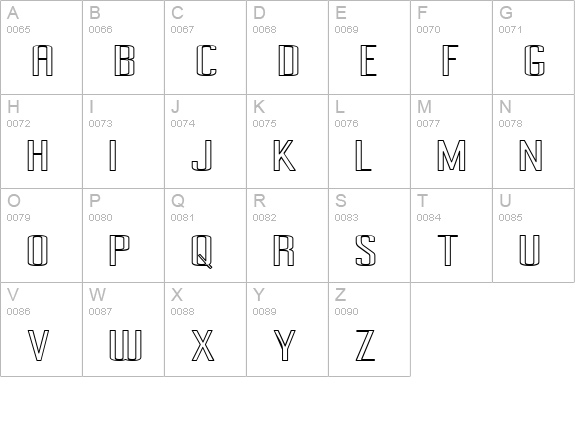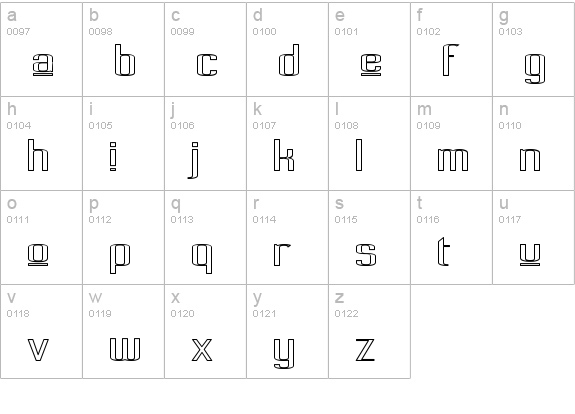
Pecot Upper Outline font is a stunning typeface that exudes elegance and sophistication. With its clean lines and distinct outlines, this font is perfect for adding a touch of modernity to any design project. Its uppercase characters are beautifully crafted, making them versatile for headlines, titles, and logos. What makes Pecot Upper Outline font even more appealing is that it is completely free to download. You can easily access this remarkable font at FontsMarket.com, where it is freely available for personal and commercial use. Whether you're a designer, a business owner, or simply someone who appreciates high-quality fonts, Pecot Upper Outline is a must-have in your collection. With its sleek and refined aesthetic, Pecot Upper Outline font will effortlessly elevate your designs to new heights. Its striking outlines and attention to detail make it a standout choice for branding, advertising, packaging, and more. The versatility of this font allows it to be used in various contexts, from digital platforms to print materials. The clean and crisp design of Pecot Upper Outline font ensures legibility even at smaller sizes, making it ideal for body text as well. Its balanced proportions and consistent strokes create a harmonious visual experience that is both pleasing to the eye and easy to read. Whether you're designing a website, a magazine layout, or a promotional flyer, this font will ensure your content is presented in the most captivating way. Download Pecot Upper Outline font for free at FontsMarket.com and unlock the potential to create stunning designs that leave a lasting impression. Its modern and sophisticated style combined with its accessibility make it a valuable asset for any creative project. Don't miss out on this incredible opportunity to enhance your design work with a font that is not only visually appealing but also freely available.